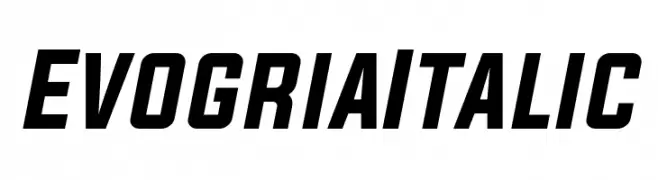
A bold, italicized font with a modern and dynamic style.
A bold, italicized font with a dynamic and impactful style.
A sleek, bold, and italicized font with a modern and dynamic style.